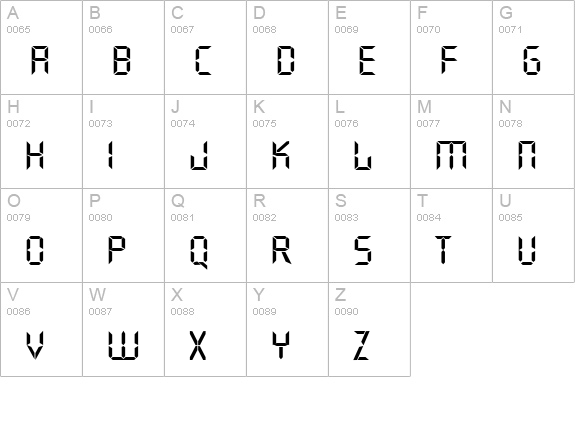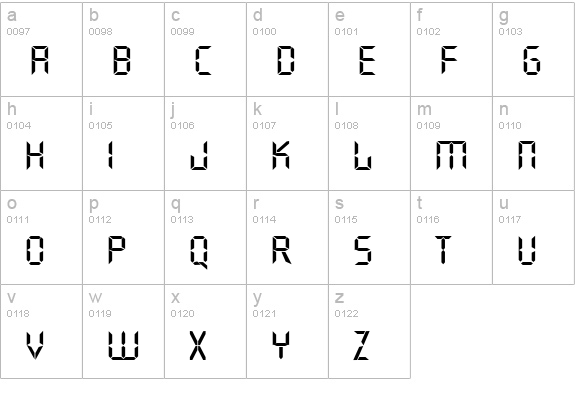
Digiface Regular is the standard, neutral variant in the Digiface typeface family \xE2\x80\x94 well suited to general body text, paragraphs, and standard typographic work.
Digiface Regular is a modern and versatile font that combines classic elegance with a touch of contemporary flair. Its sleek lines and balanced proportions make it ideal for a wide range of design projects, from branding to editorial layouts. The clean and crisp letterforms of Digiface Regular exude a sense of sophistication and professionalism, making it perfect for creating a polished and refined look. What sets Digiface Regular apart is that it is available for free download at FontsMarket.com. This means that you can easily access this high-quality font without any cost, making it a valuable resource for designers, students, and anyone looking to enhance their creative projects. With its timeless appeal and effortless charm, Digiface Regular is sure to elevate your designs and leave a lasting impression.